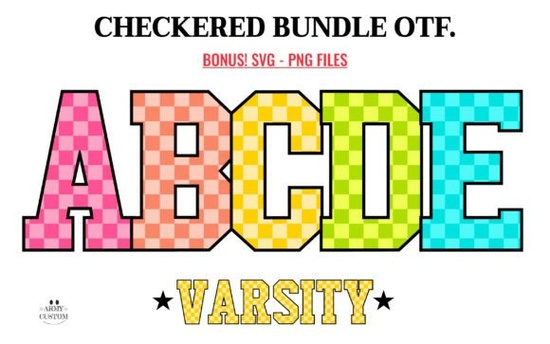
The “Checkered Back to School Font” brings a fresh, nostalgic energy to any design project. With its unique checkered pattern and playful style, this font is perfect for anyone looking to add a touch of creativity to their work. Whether you're designing for a school event, a craft project, or a print-on-demand product, this font offers a distinctive look that stands out.
Designed with imperfections in mind, the “Checkered Back to School Font” captures the essence of childhood memories while offering a modern twist. Its bold, eye-catching design makes it ideal for logos, banners, and social media graphics. The font’s versatility allows it to fit into a wide range of projects, from educational materials to holiday promotions.
Why Use a Checkered Font for Your Projects?
Using a checkered font can add visual interest and a sense of fun to your designs. It’s especially useful when you want to create something that feels both artistic and approachable. The checkered pattern adds texture and depth, making your text more engaging and memorable.
For designers and crafters, this font opens up new possibilities for creative expression. It works well with other fonts and can be paired with bold colors or minimalist layouts. The result is a design that feels dynamic and expressive, perfect for capturing attention in a crowded market.
How to Incorporate This Font in Different Projects
Print-on-demand sellers will find the “Checkered Back to School Font” useful for creating unique t-shirts, mugs, and other merchandise. Its bold style ensures that your designs stand out, making them more appealing to customers. You can use it for slogans, quotes, or even custom illustrations.
Small businesses can also benefit from this font. Whether you’re designing a logo, a flyer, or a website header, the checkered style adds a personal and creative touch. It’s an excellent choice for brands that want to convey a sense of fun and nostalgia without being too formal.
Creative hobbyists will appreciate how easy it is to use this font in their DIY projects. From handmade cards to scrapbooking, the font’s unique look can elevate your work and make it feel more professional. It’s also great for digital art, where texture and contrast play a big role.
Exploring Similar Fonts and Styles
If you enjoy the “Checkered Back to School Font,” you might also like other fonts that share similar themes. For example, the Back to School Doodle Font offers a more casual, hand-drawn style that complements the checkered look. It’s ideal for projects that need a friendly and whimsical feel.
For those who prefer a more patriotic vibe, the Patriotic Font provides a bold and confident style. While it has a different aesthetic, it can still work well with the checkered font in certain design contexts. It’s a good option if you want to add a sense of pride or celebration to your work.
If you’re drawn to fantasy or whimsical themes, the Mermaid Font could be a great addition to your collection. Its elegant and flowing style pairs well with the checkered font, creating a design that feels both magical and modern.
If you’re looking for a reliable source of fonts, Checkered Back to School Font is a great place to start. It offers high-quality, customizable fonts that are perfect for both personal and commercial use.
Before finalizing your design, make sure the font is legible and fits the overall tone of your project. Test it in different sizes and backgrounds to ensure it looks good in all contexts. Also, check the licensing terms to make sure you’re using it correctly for your intended purpose.
By choosing the right font, you can enhance your designs and make them more engaging for your audience. The “Checkered Back to School Font” is a versatile and stylish option that can bring a fresh perspective to your creative work.
Take some time to experiment with different fonts and styles. Try combining the checkered font with other elements to see what works best for your project. Whether you’re a designer, crafter, or small business owner, this font can help you express your creativity in a unique and meaningful way.
Start by exploring the font’s features and how it can fit into your workflow. Once you get a feel for it, you’ll be able to use it more confidently in your designs. Don’t hesitate to try new combinations and see how they impact your final results.
Remember, the goal is to create something that resonates with your audience and reflects your personal style. With the right tools and a bit of experimentation, you can achieve just that.